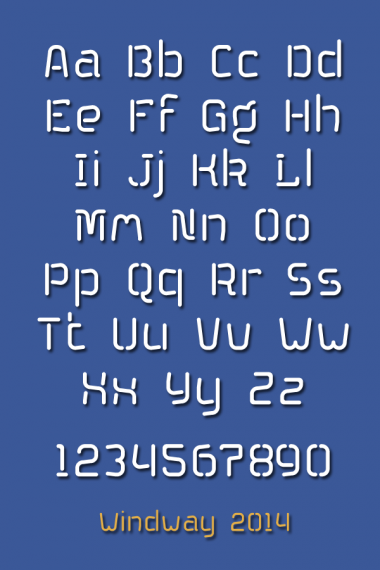
Windway
Congratulations! FontStruct Staff have deemed your FontStruction worthy of special mention. “Windway” is now a Top Pick.
Clever! 10/10 + fav
A well balanced design.
Beautiful.
Very pretty! A well deserved TP. Just one minor issue, W,w look a bit strange.
Incredible!
This is AMAZING!!!!!! By the way, I found a font that reminded me of this. Sort of. It's called Wawati
Love the g!